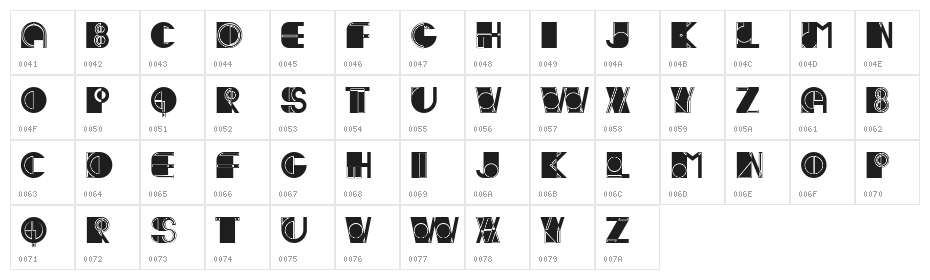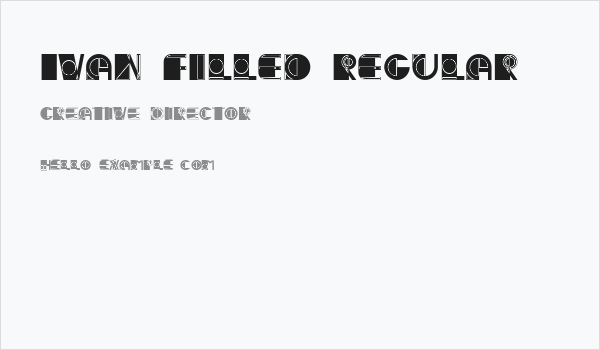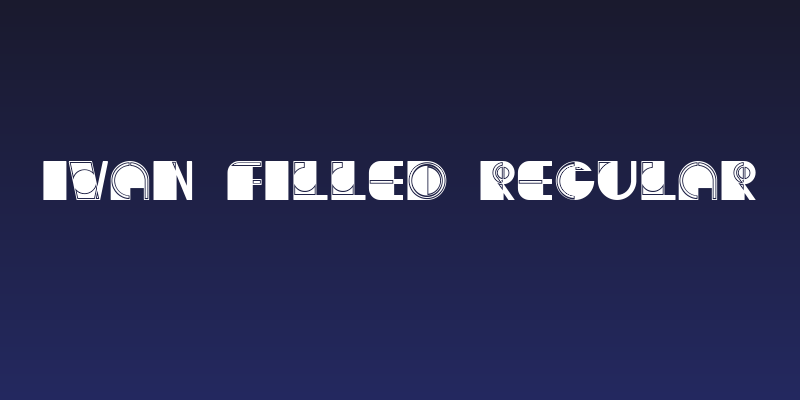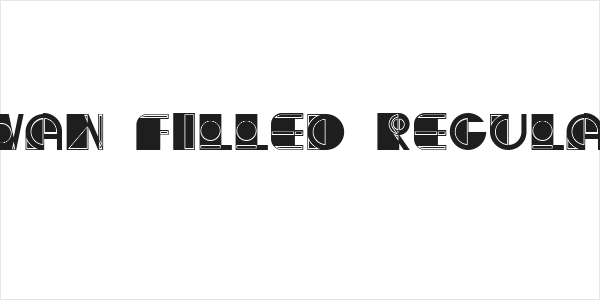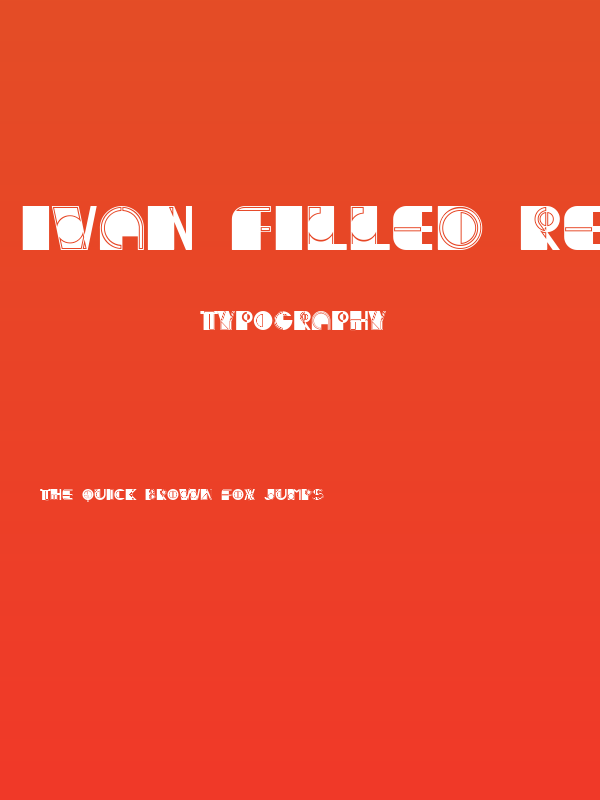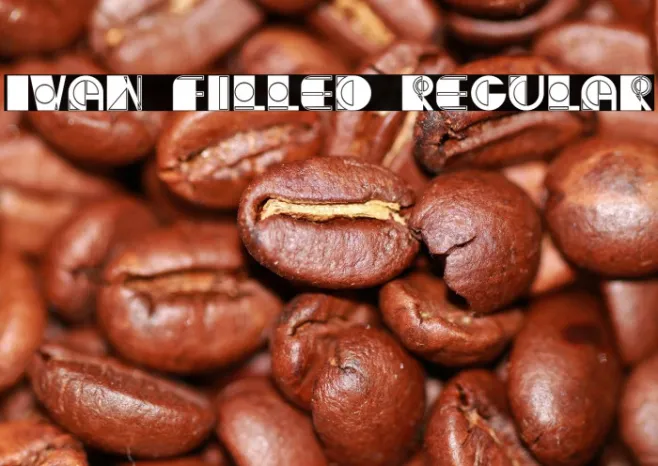
Ivan Filled Regular Font
✎ Art Deco
Ivan Filled Regular Description
This font features a bold, geometric design with a filled style that emphasizes its modern and decorative nature. The characters are constructed with a combination of solid and outlined elements, creating a striking visual contrast. Each letter is uniquely designed with intricate patterns and shapes, making it stand out as a display typeface. The uppercase letters are particularly bold, with a strong presence that commands attention. The font's style is reminiscent of art deco influences, with a contemporary twist that makes it suitable for modern design projects. Its distinct appearance makes it ideal for use in branding, posters, and other creative applications where a bold statement is desired.